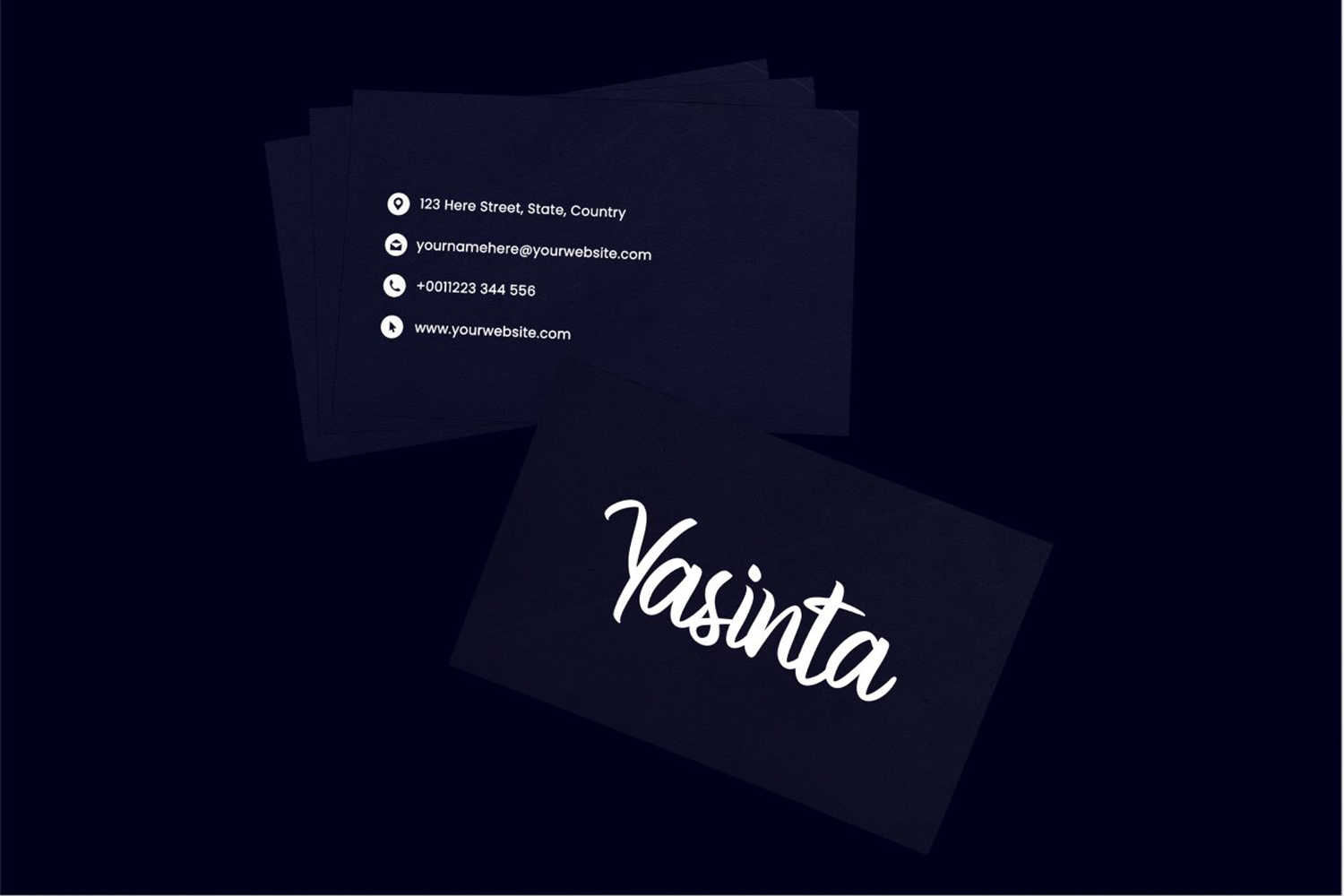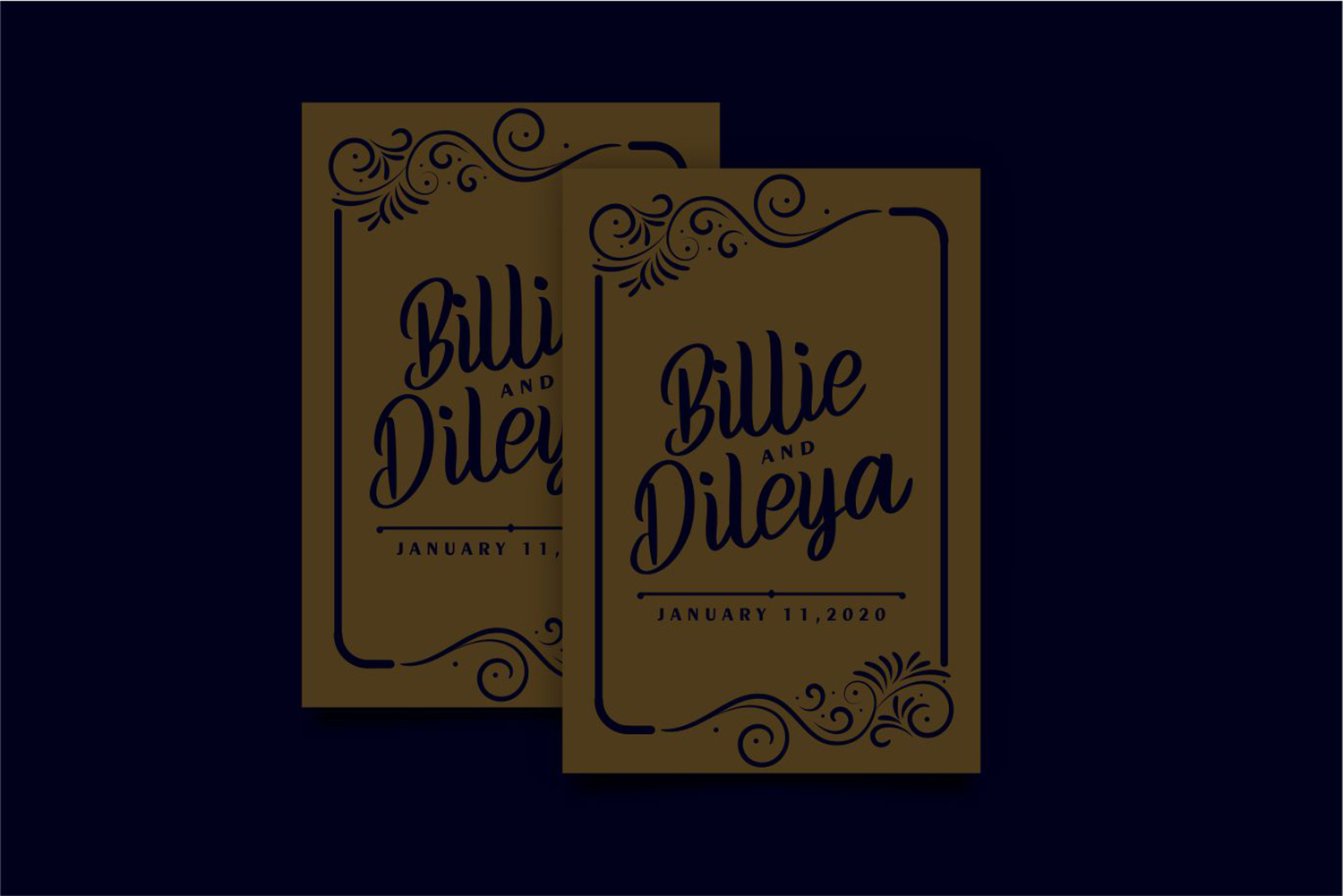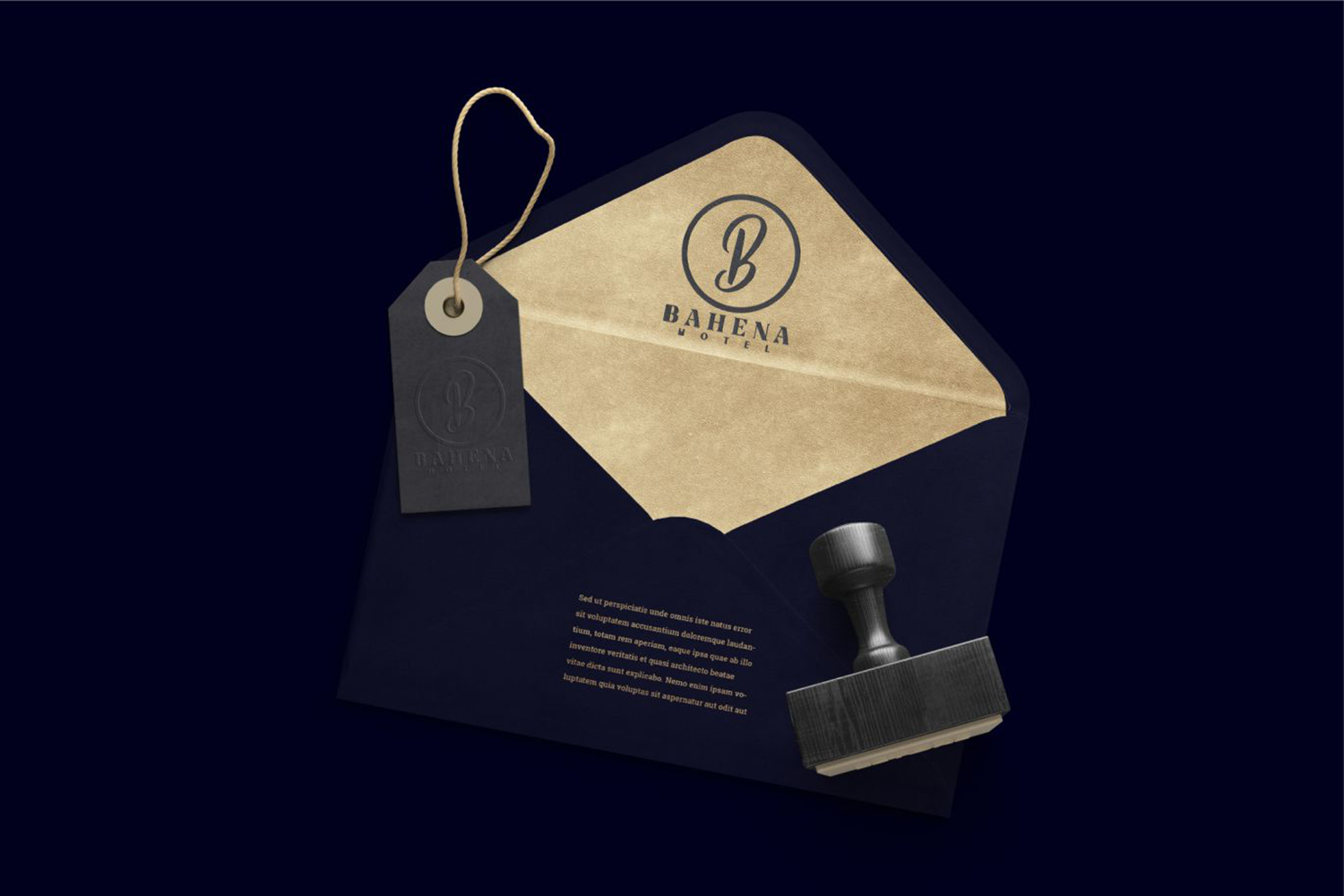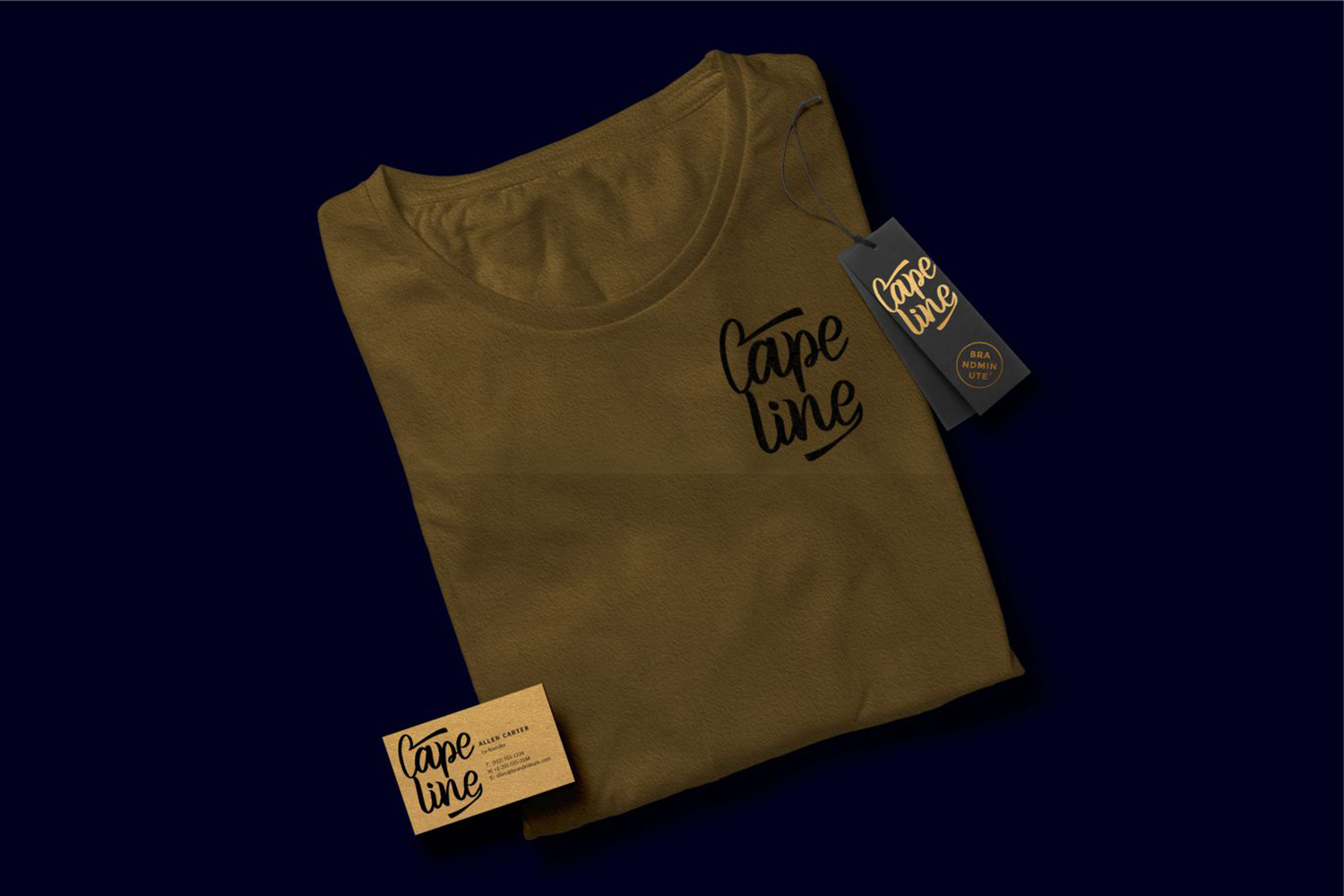
Become Choice Free Font
Become Choice Free Font, an exquisite script font exuding a contemporary charm and impeccable craftsmanship, drawing inspiration from the timeless art of classic calligraphy. This font strikes the perfect balance, neither too thin nor too thick, offering a harmonious and diverse style that is thoughtfully designed to elevate the aesthetics of your projects, enhancing their inherent beauty. Unlock the transformative potential of “Become Choice” for your creative endeavors today. This free typeface was designed by a talented Fannan studio. If you like it don’t forget to check out the full version.